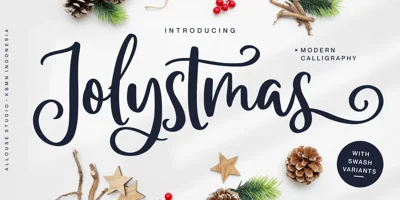
Jolystmas Font
This festive typeface is perfect for Christmas cards, holiday packaging, seasonal marketing campaigns, winter celebrations, holiday party invitations, Christmas decorations, seasonal restaurant menus, holiday retail promotions, festive event planning, yuletide entertainment, Christmas gift wrapping, and joyful seasonal branding. The font's merry design makes it ideal for projects that celebrate the magical spirit of Christmas, holiday traditions, and the heartwarming joy of festive celebrations that bring families together.
Jolystmas Font is exciting because it captures the pure magic and joyful spirit of Christmas through its festive letterforms and holiday-inspired character structure. The font's cheerful curves and celebratory proportions create an atmosphere of warmth, generosity, and seasonal wonder, making it perfect for brands that want to convey holiday cheer, festive excitement, and the timeless appeal of Christmas traditions. Its jolly personality ensures instant holiday spirit while maintaining excellent readability across various seasonal applications.
The Jolystmas Font family includes multiple holiday variations: Light Snowflake, Regular Holly, Medium Mistletoe, Bold Santa, and Black Christmas weights, each available in standard and decorated versions. Special holiday editions feature festive alternates, Christmas ornaments, and seasonal symbols that enhance the font's yuletide appeal, providing designers with comprehensive tools for creating authentic Christmas-focused communications.
Spread Christmas magic with Jolystmas Font – a typeface that embodies holiday joy and festive celebration. Whether you're developing Christmas branding, holiday marketing campaigns, or seasonal event materials, this font delivers the merry presence and festive charm your projects need while ensuring exceptional performance and joyful impact across all Christmas and holiday applications.